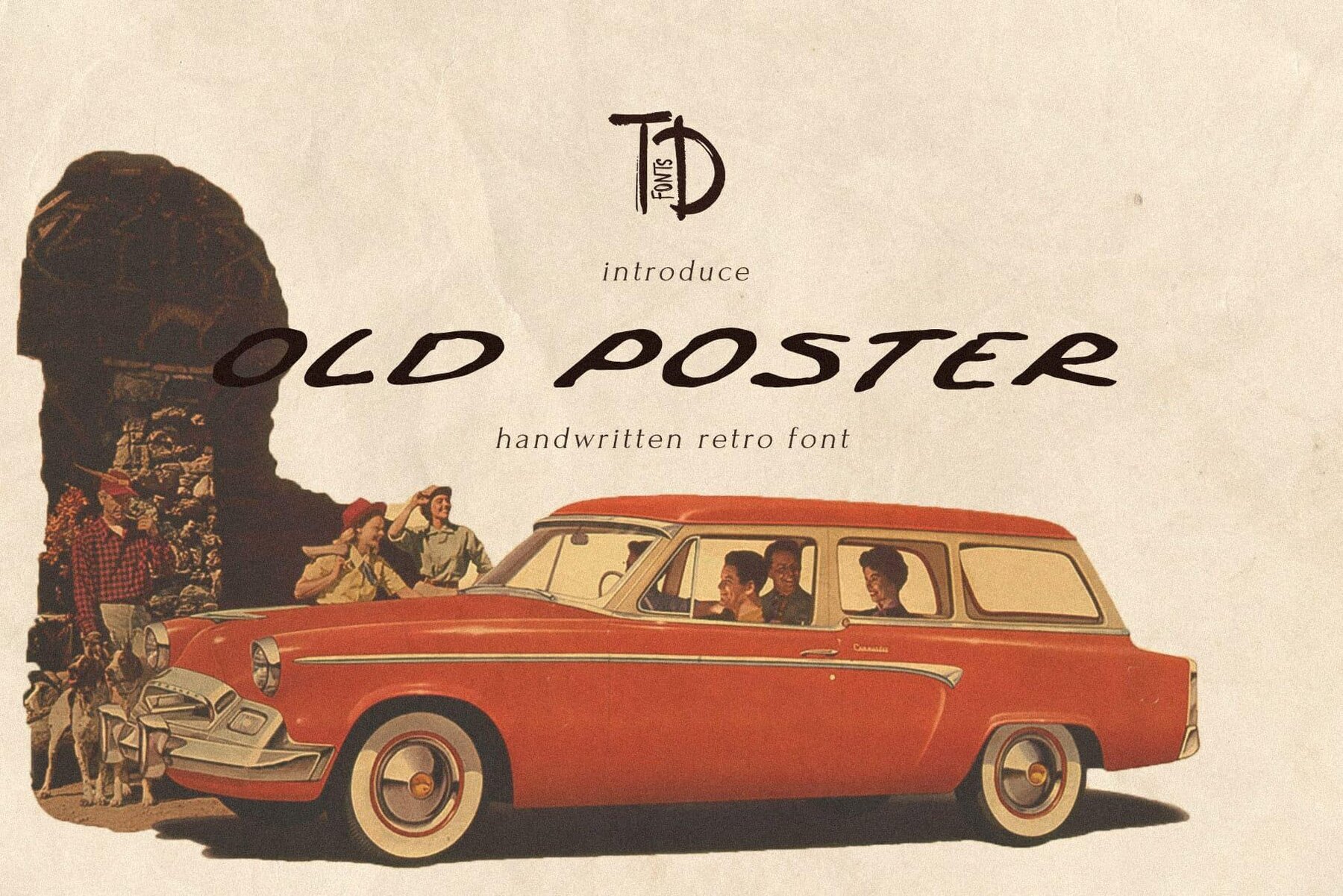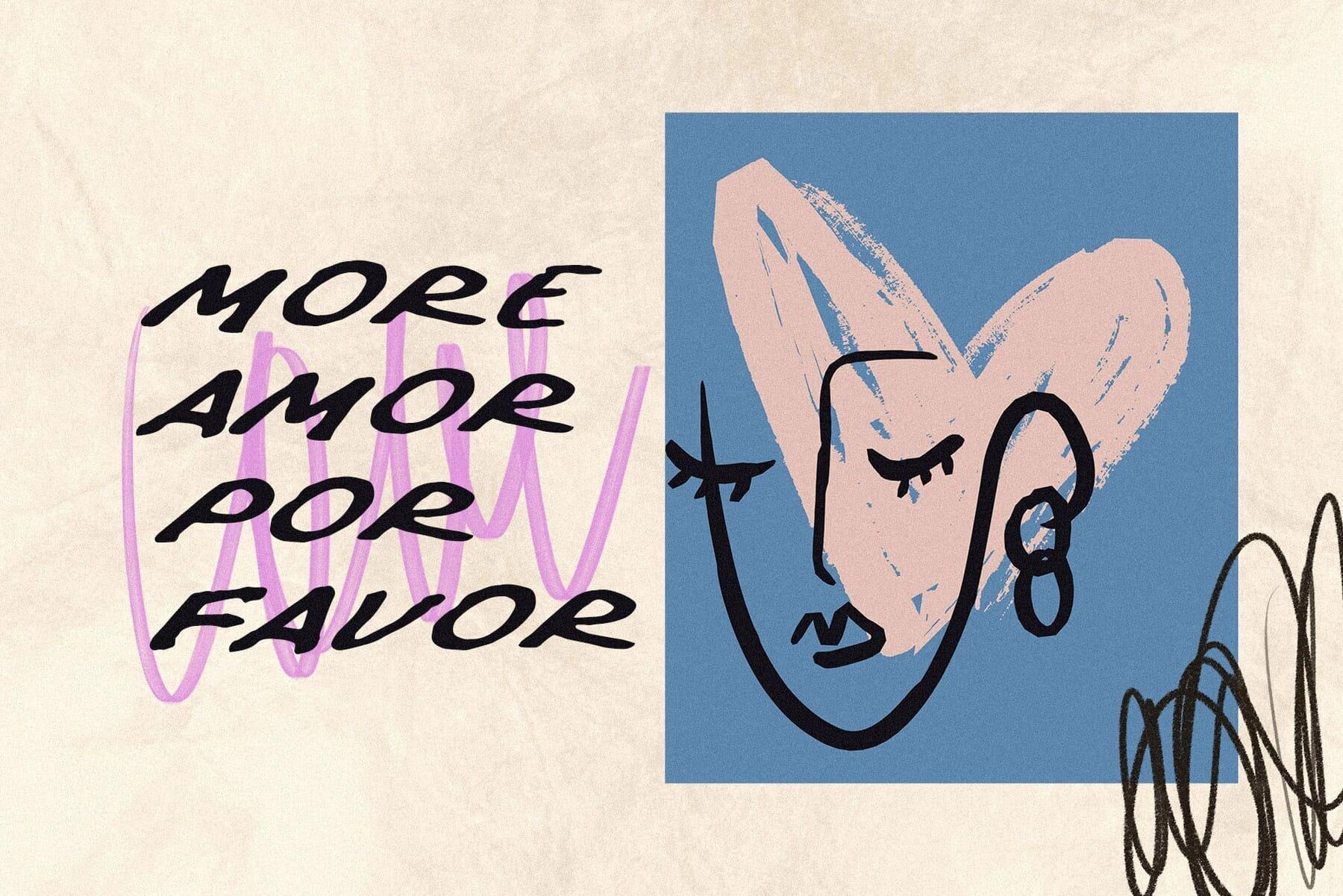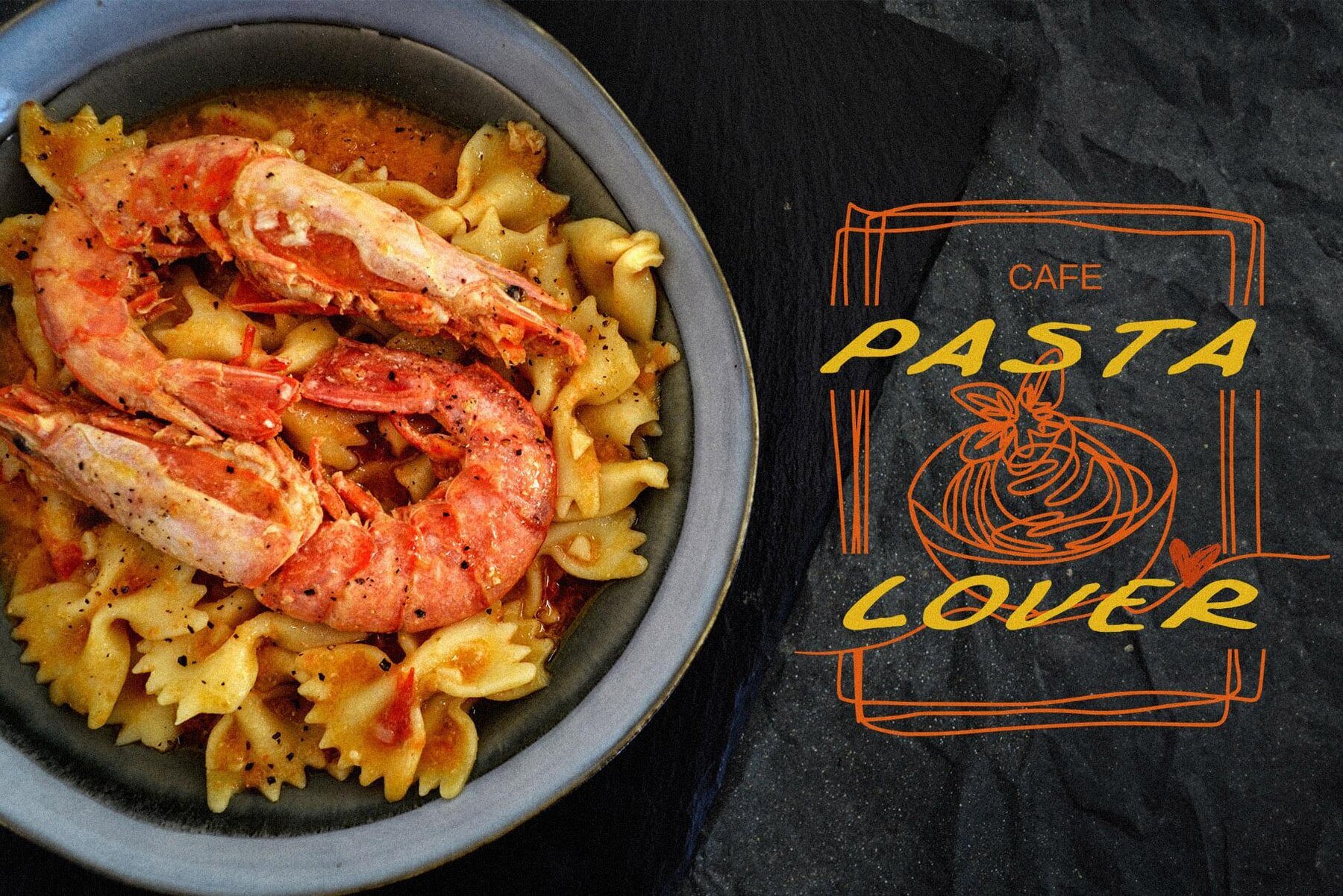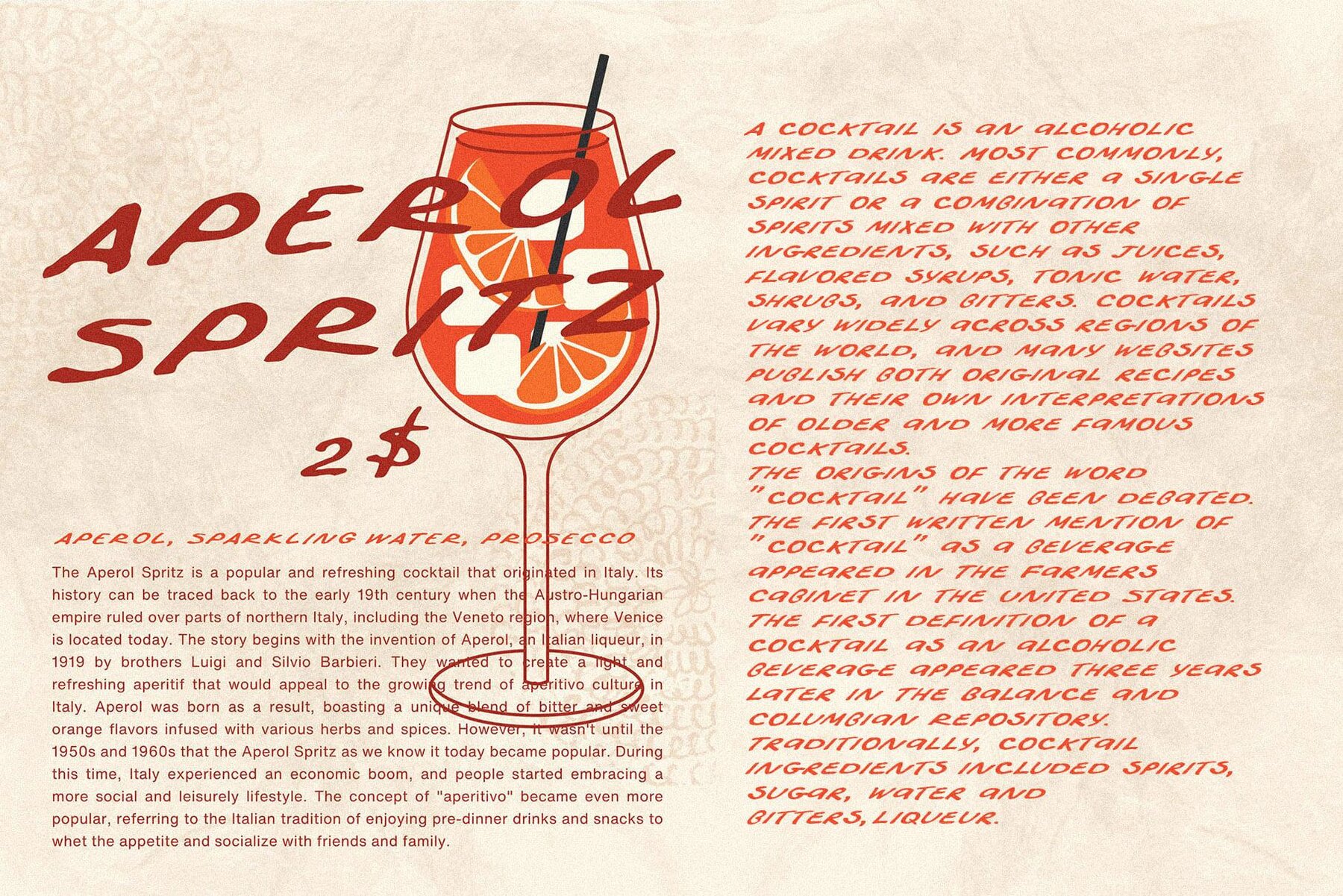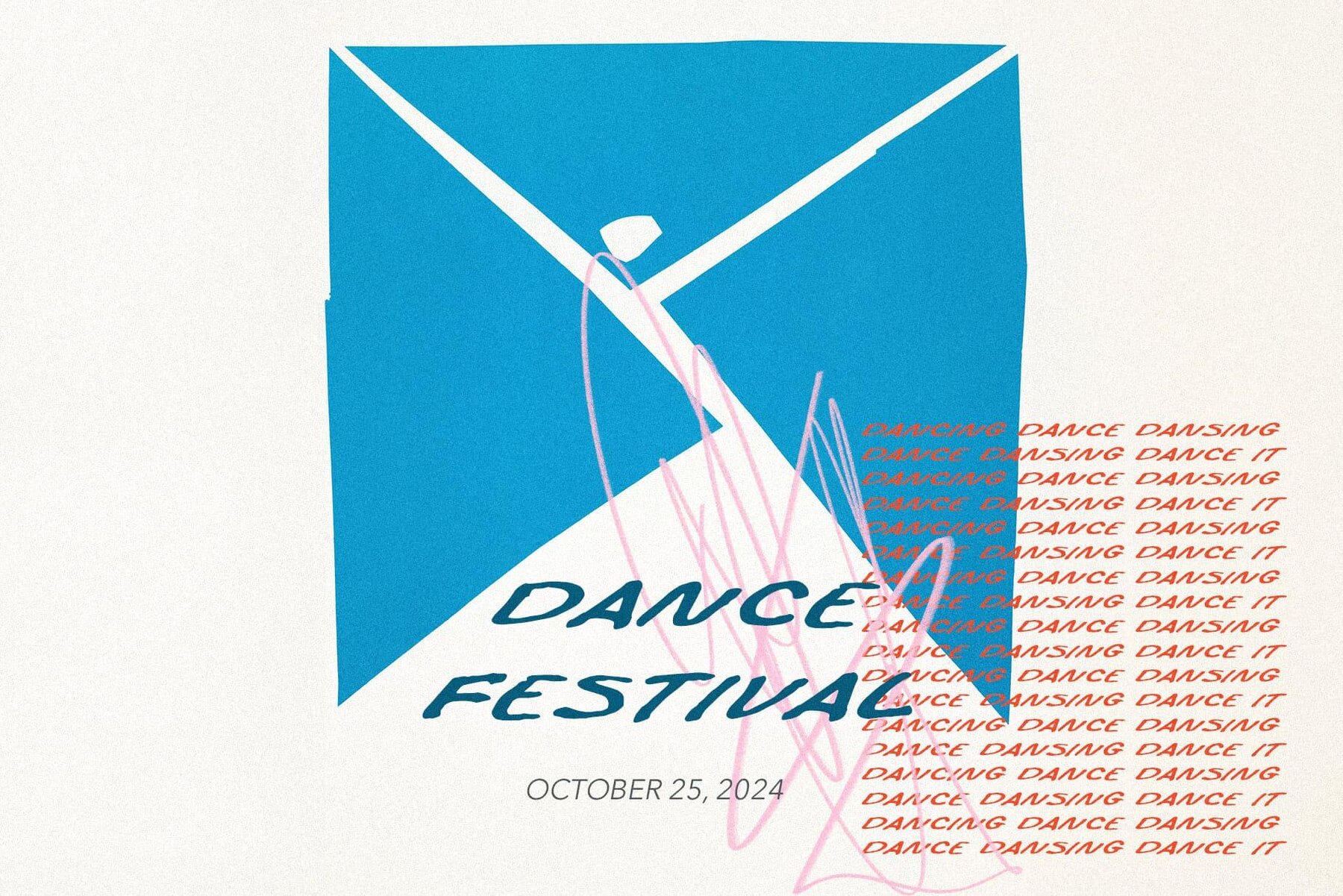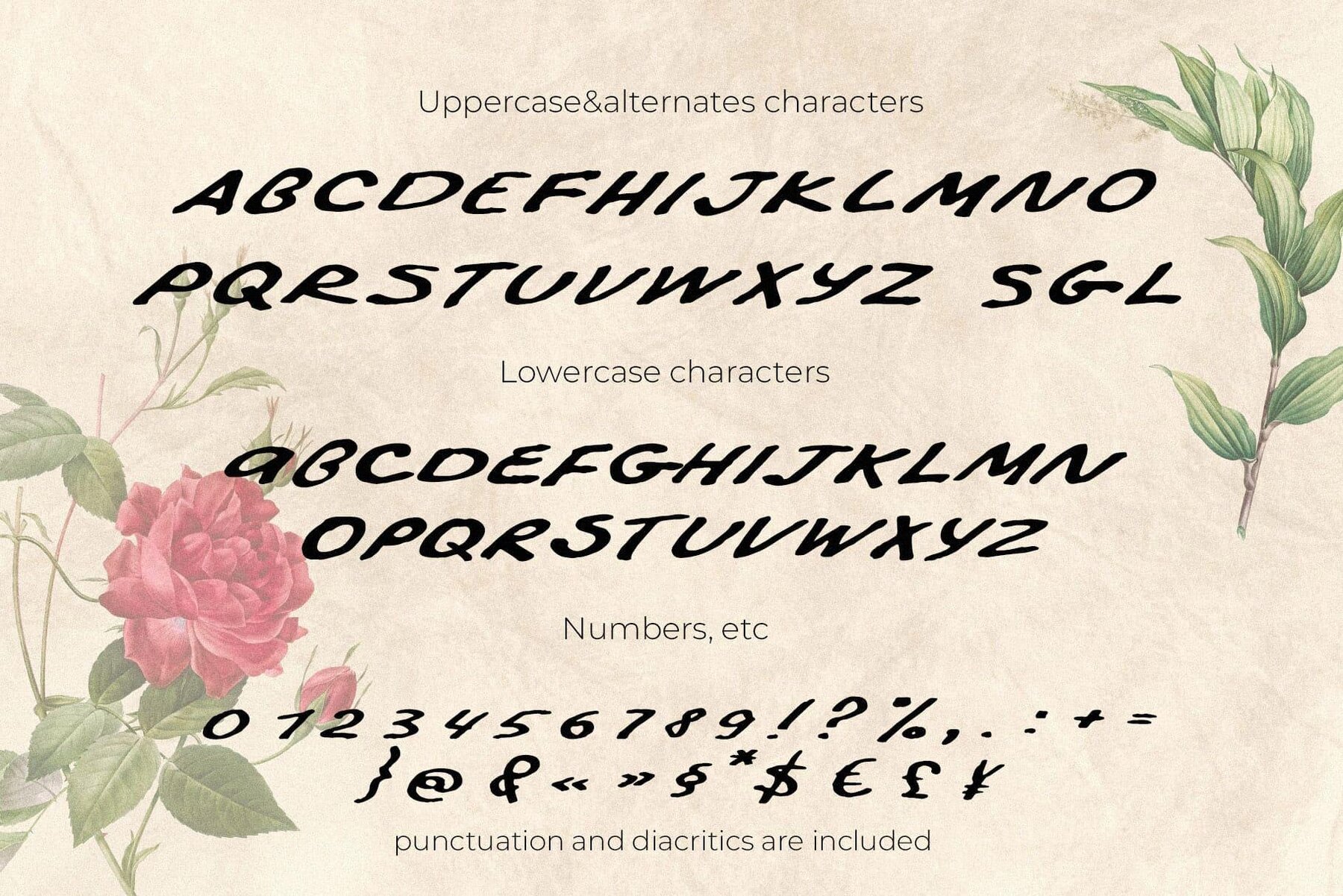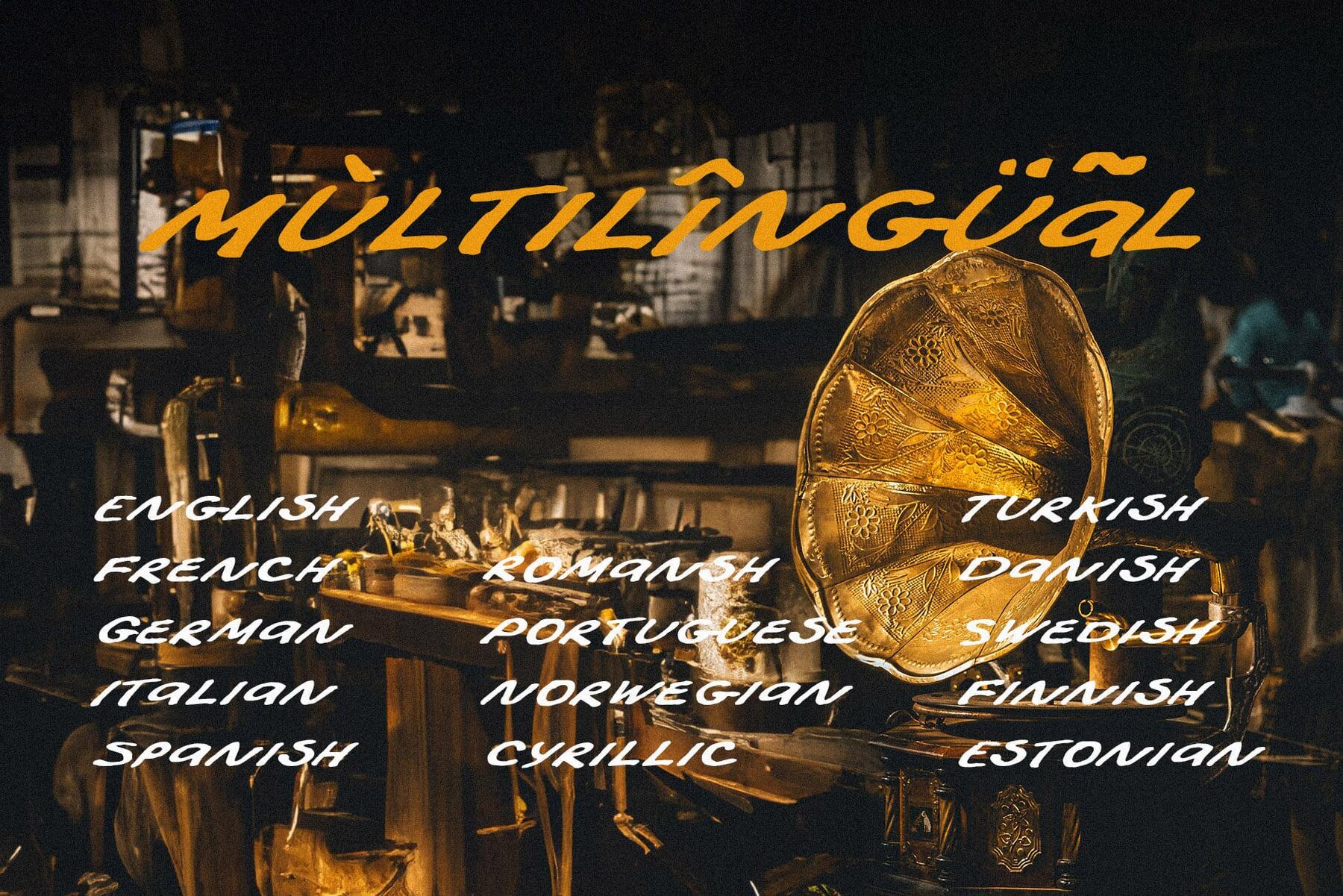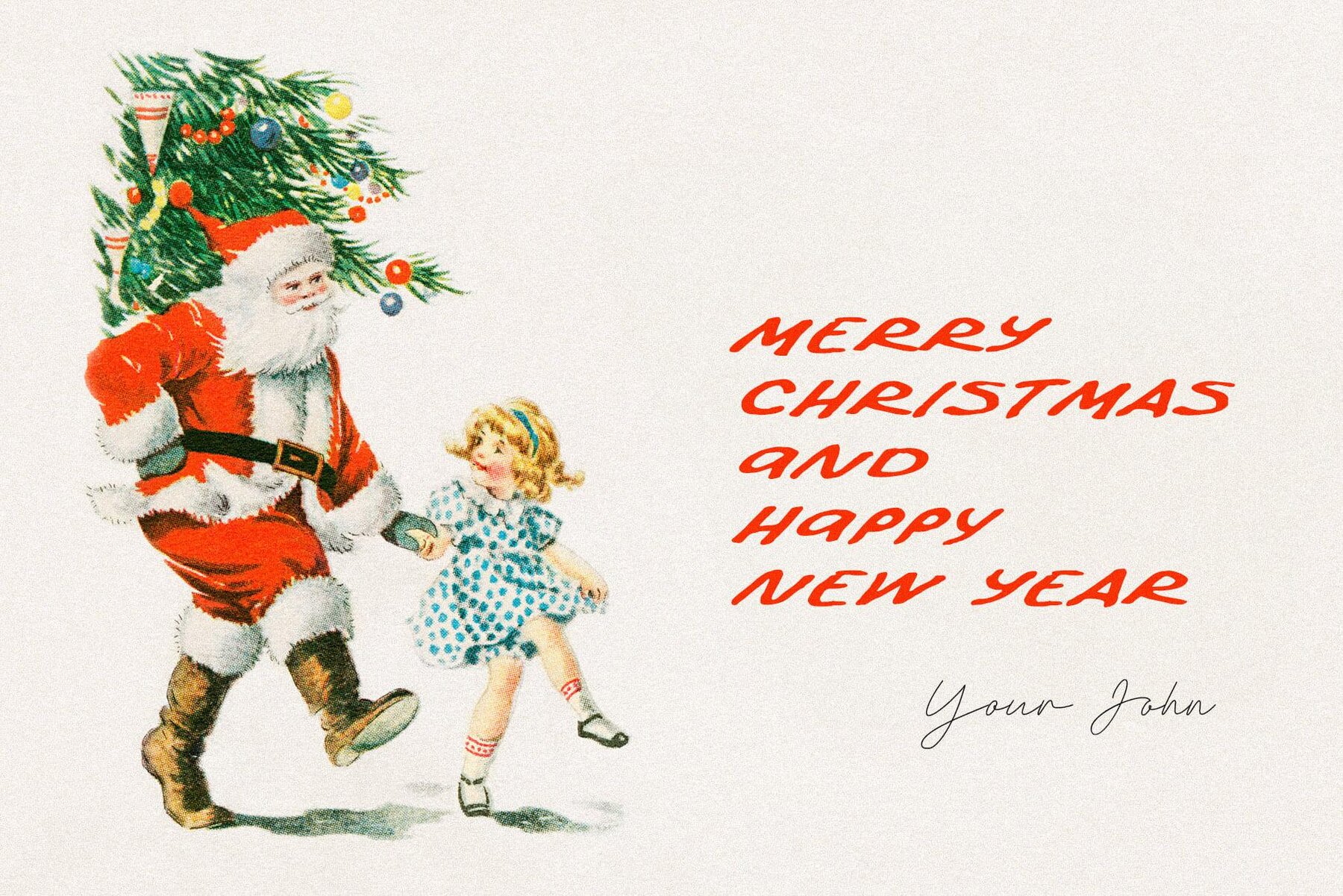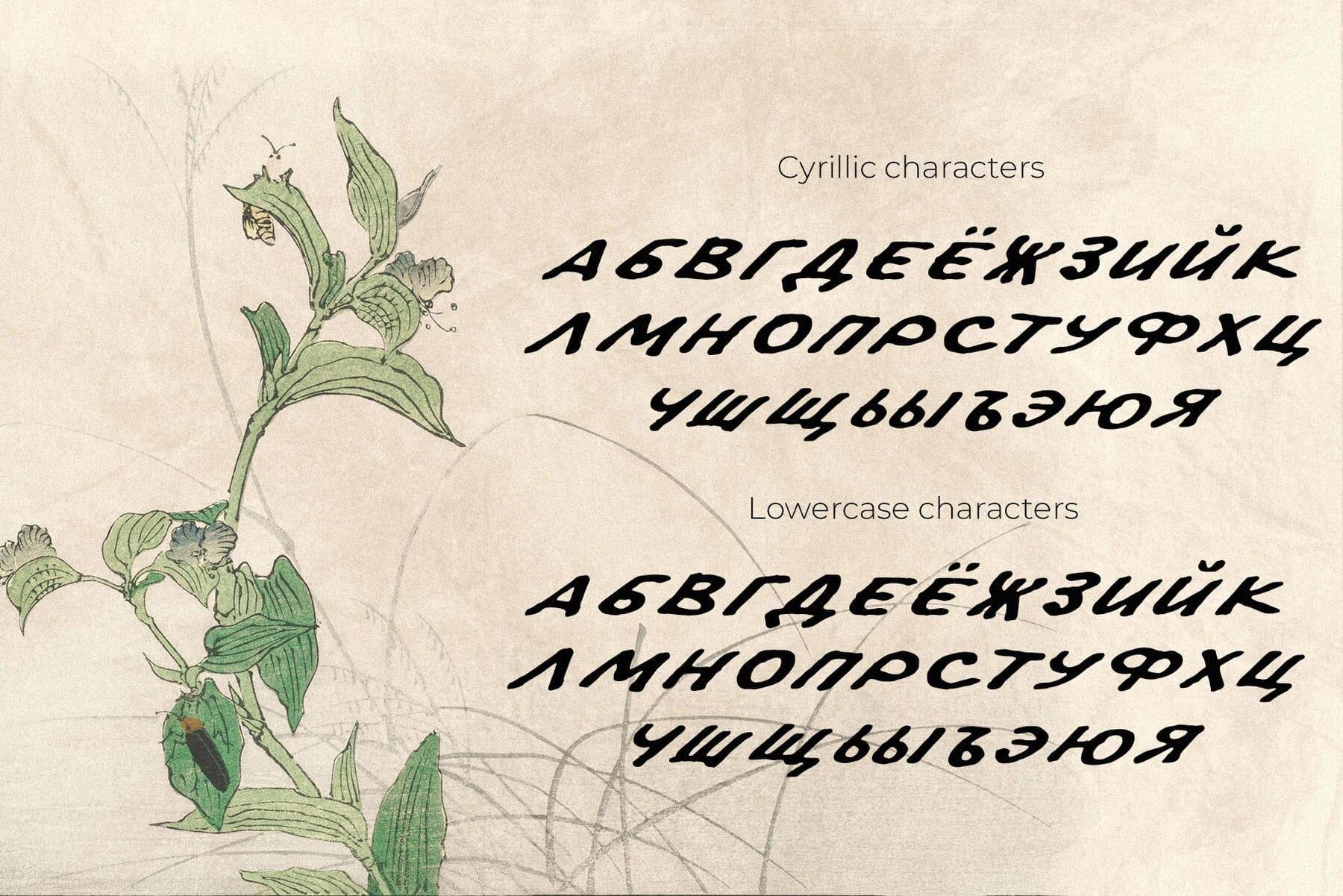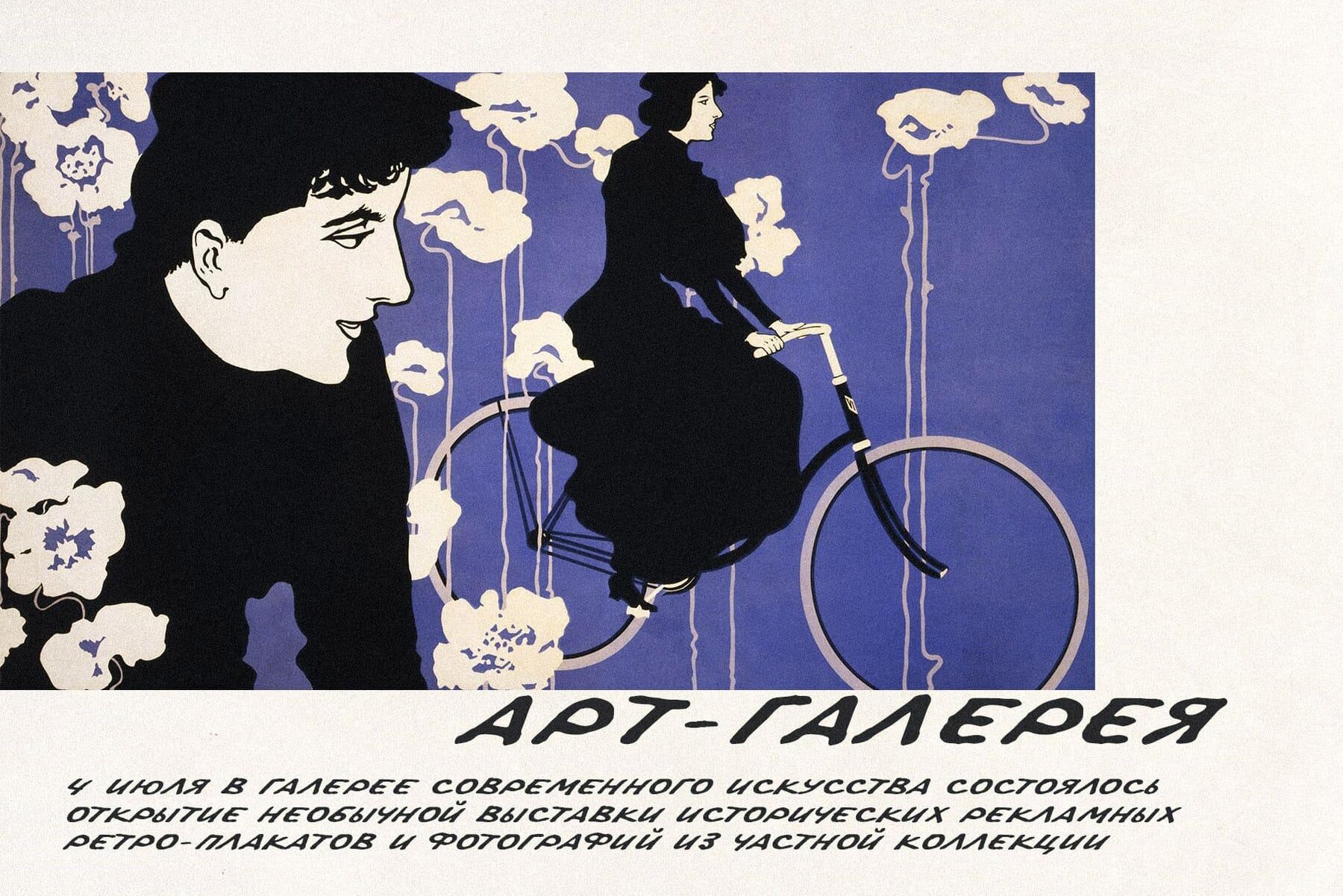
Old Poster Font
Old Poster
Inspired by the timeless allure of vintage signage, Old Poster is a handcrafted retro sans serif font that pays homage to the distinctive style of classic inscriptions found on old posters. With its support for multiple languages, including Cyrillic, Old Poster seamlessly enhances branding projects, weddings, and social media posts by infusing them with a touch of handwritten charm and retro flair. Old Poster is a versatile choice, adaptable for business branding, marketing materials, website designs, product packaging, and more. For designers seeking to enrich their work with a retro vibe or add unique accents, this font serves as an ideal companion. Features: Enliven your creative toolkit with Old Poster and let it bring a distinctive personality to your projects. Please note that text and mockups are not included.Old Poster: Handwritten Retro Sans Serif